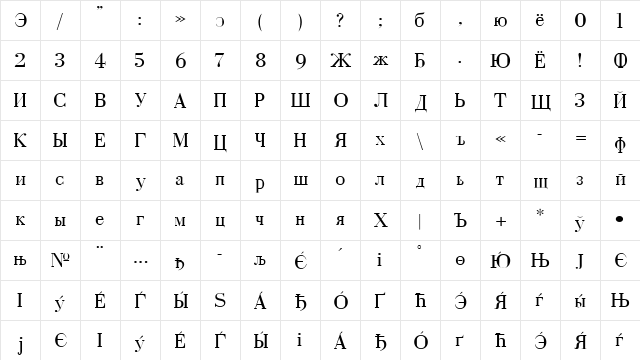
Orloff Regular
Design Context for Orloff Typeface
Orloff takes a measured approach to typography — its balanced proportions and neutral character make it a reliable workhorse for both digital and print work.
Pro Tip: Use Orloff in both headline and body roles to test its range before committing to a single application.